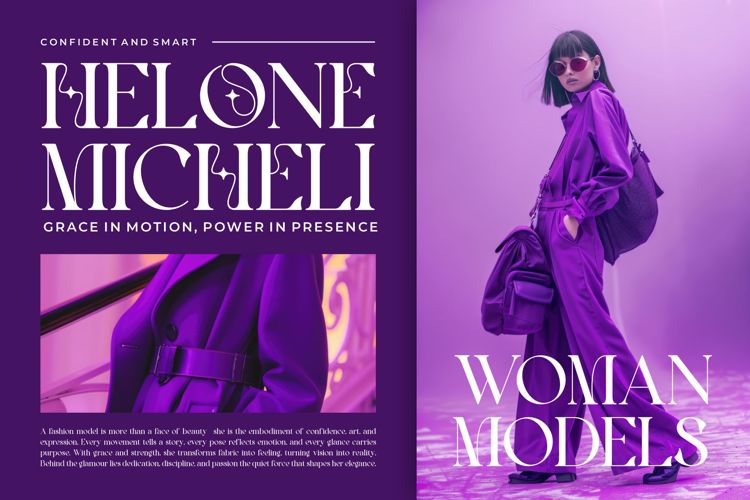
Safera Font
Safera Serif is a elegant and classy font type for all branding and logo designs. This elegant and classy Serif font has a beautiful character. This font is suitable for invitation card designs, cool logos, movie titles, movie names, business cards, book titles, brand names, and various other designs. Safera Serif is a smooth serif font that exudes sophistication and the moment. Its stylish ligatures make this font a perfect partner for any project.
- Ligature
- Uppercase and lowercase
- Numbering and Punctuation